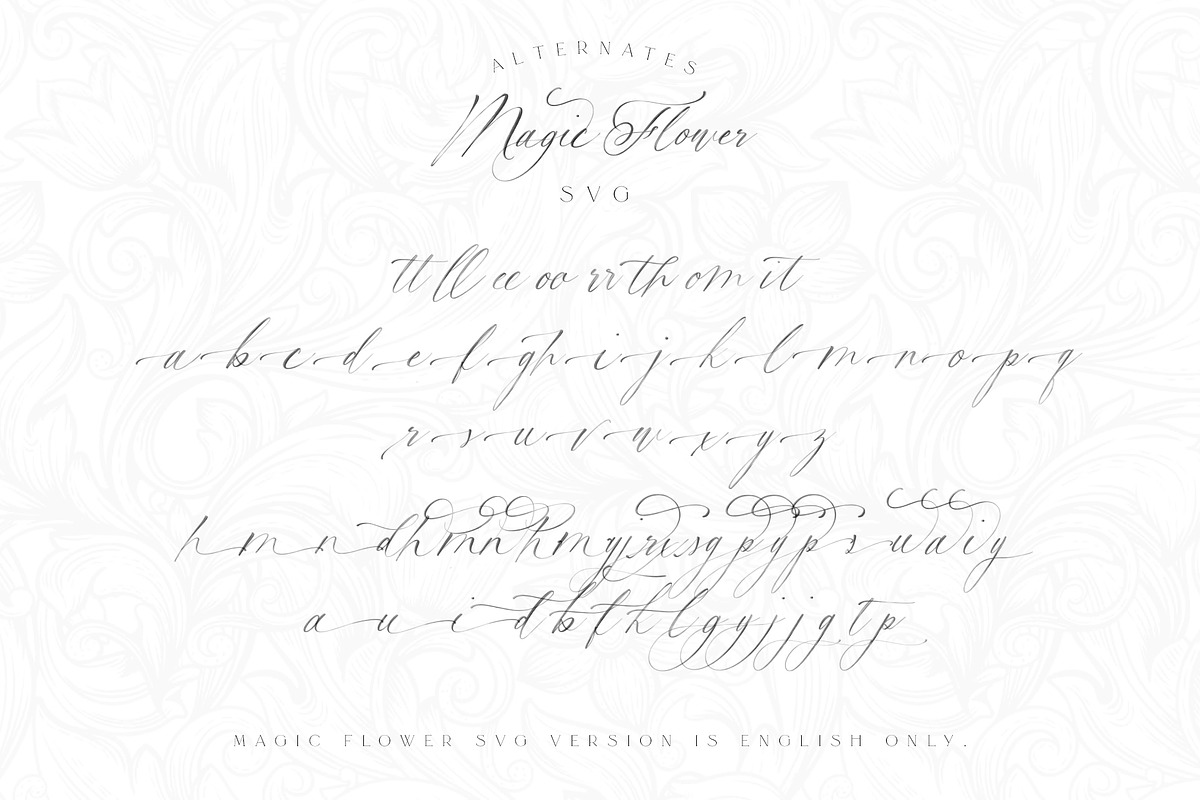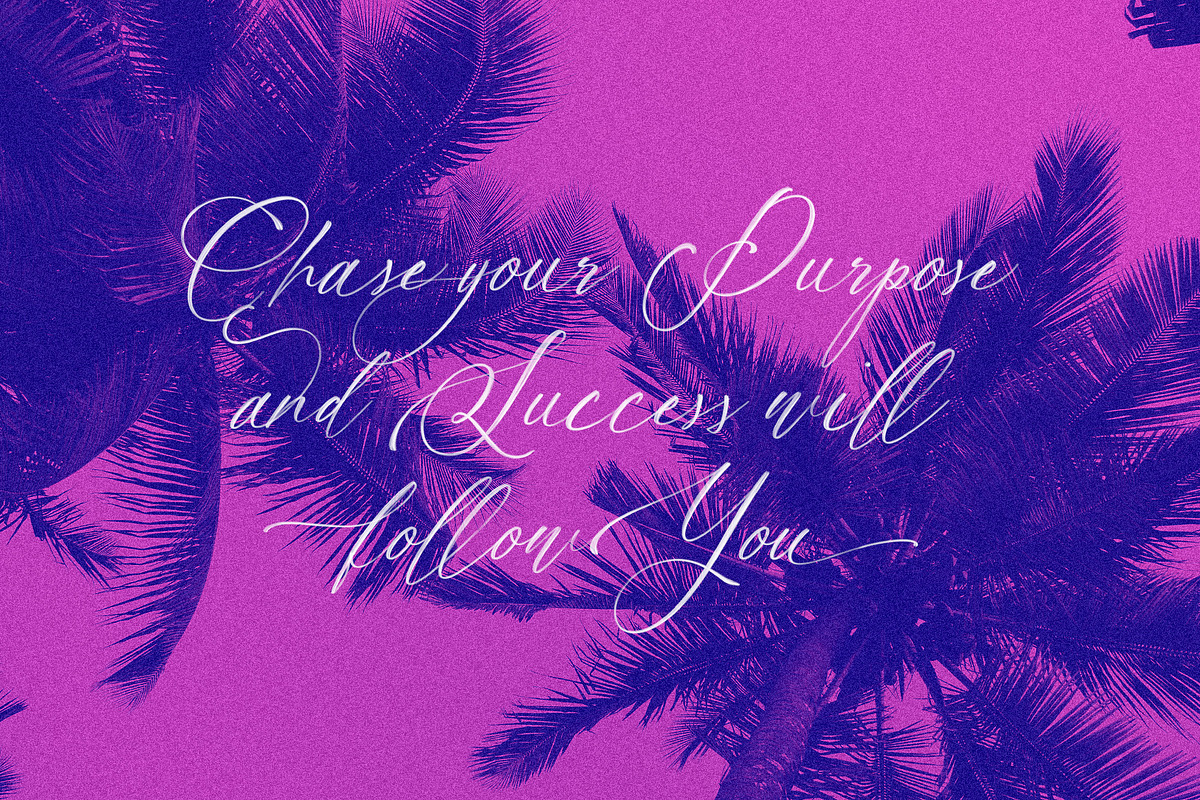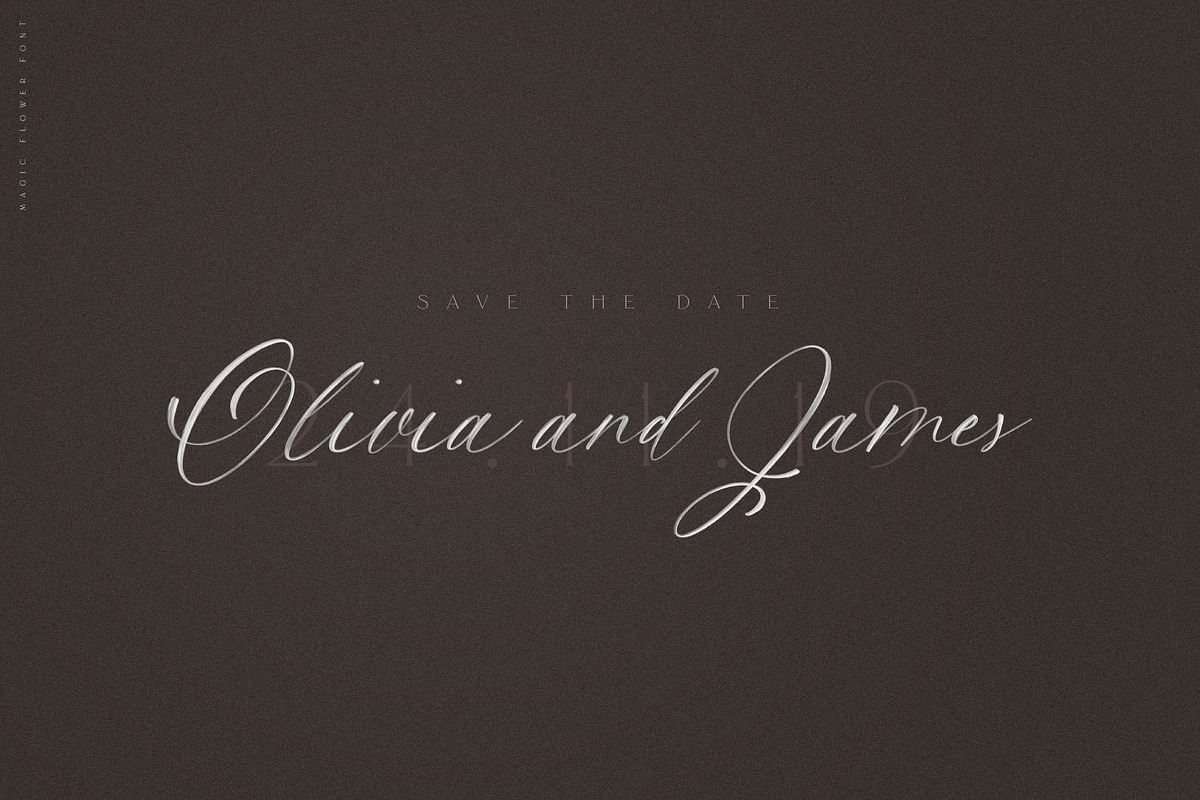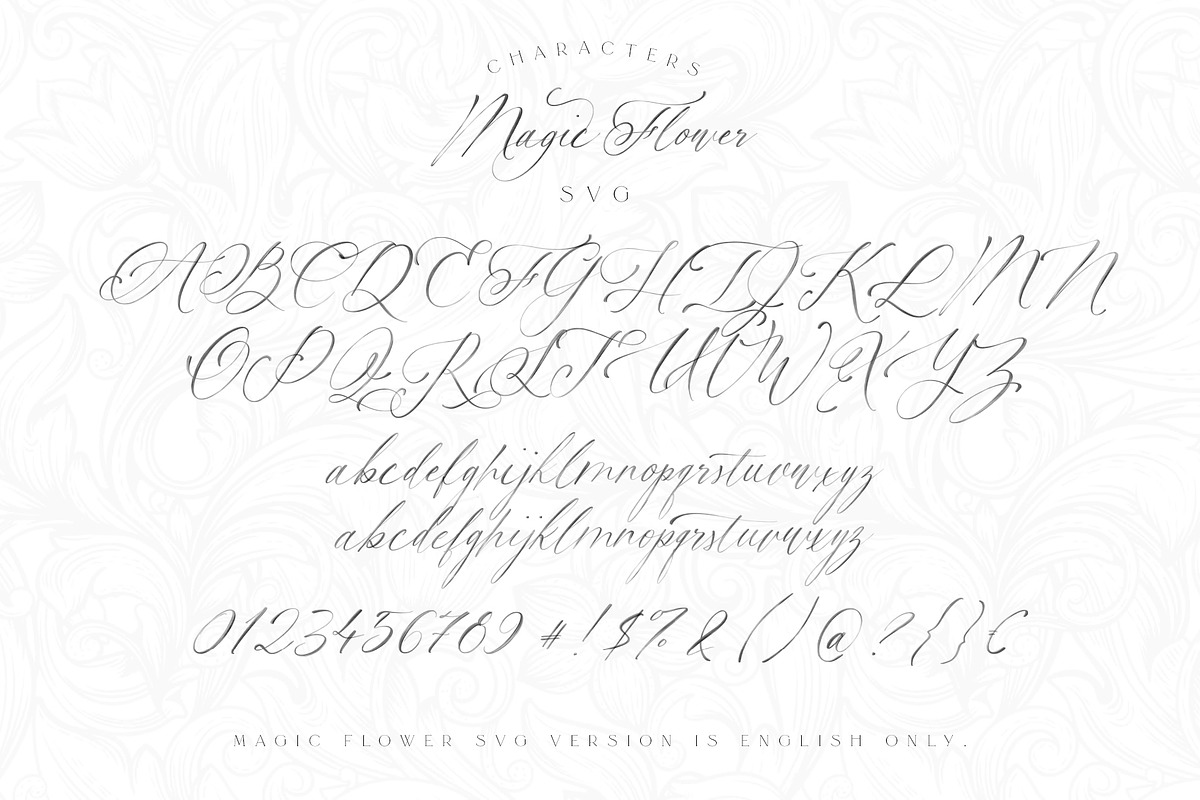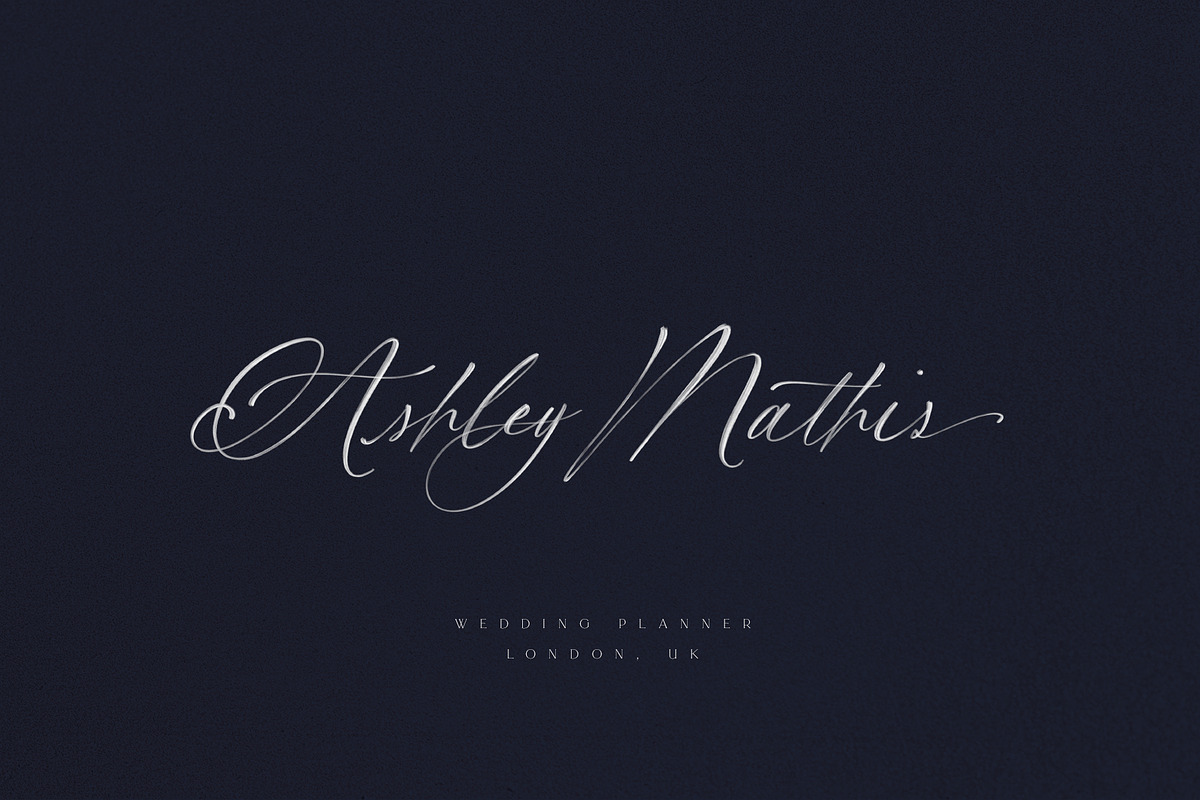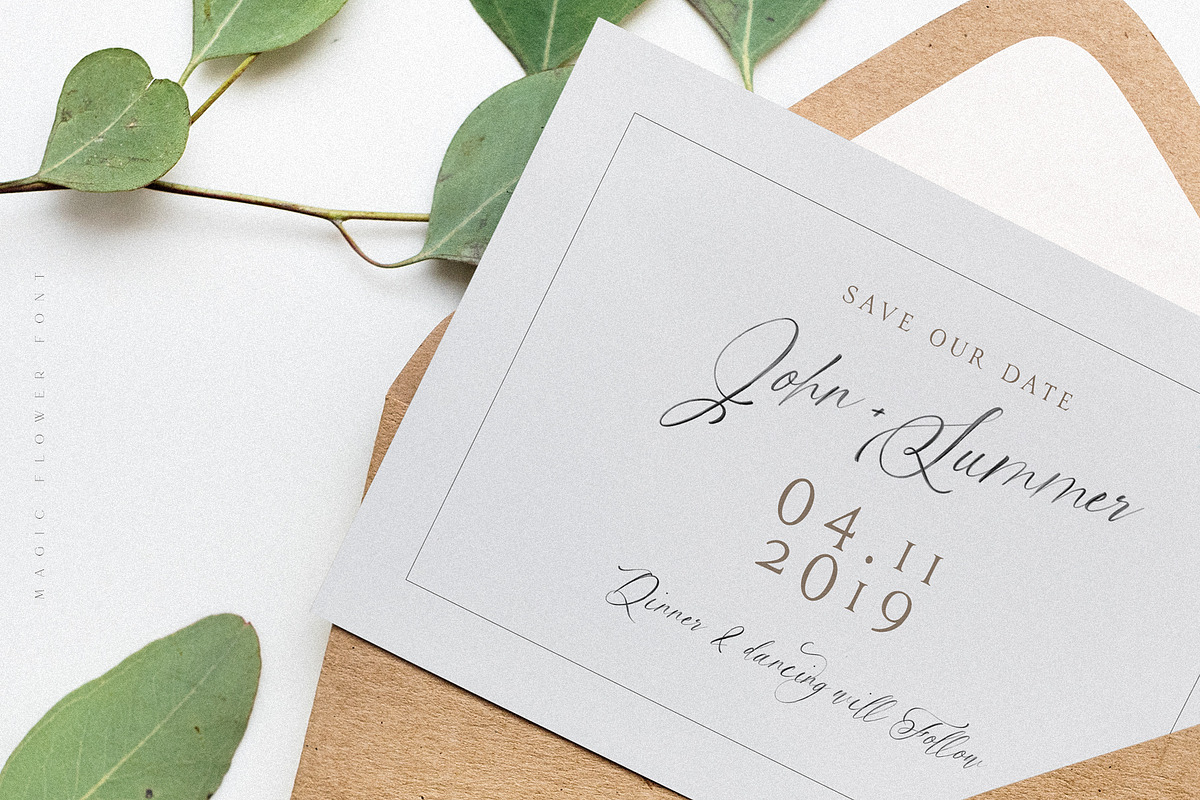
Magic Flower SVG Font
Introducing the new elegant SVG font Magic Flower SVG, hand lettered fonts with acrylic effect. Magic Flower comes in SVG and “normal” vector version. SVG font preserves all the high definition detail of the original handwritten letters. Using OpenType-SVG technology it truly looks realistic.
Magic Flower SVG Font - A high definition OpenSVG brush font with realistic watercolor texture (You need to be using Photoshop CC 2017.1.1, Illustrator CC 2018 or later)
Why Magic Flower SVG Font is worth a look
Magic Flower SVG Font by Ivan Rosenberg fits naturally into Branding, posters, packaging, typography.